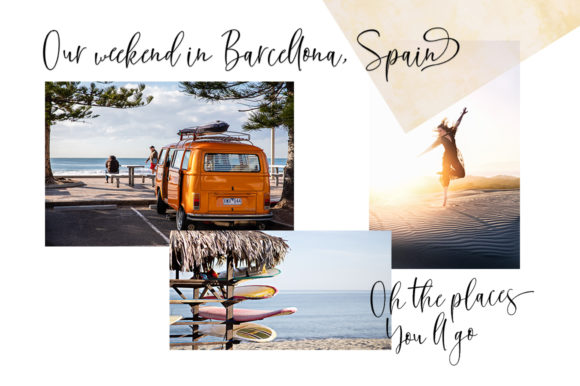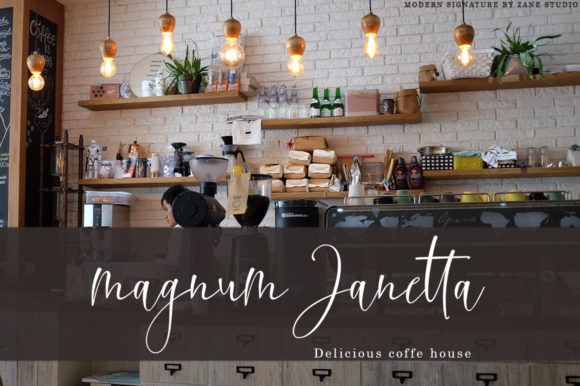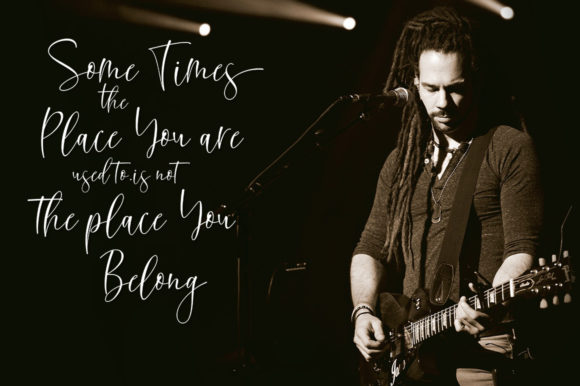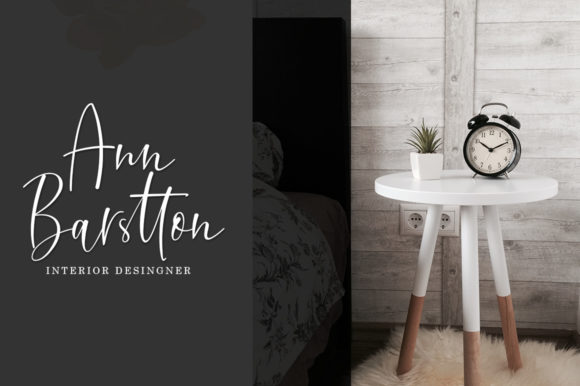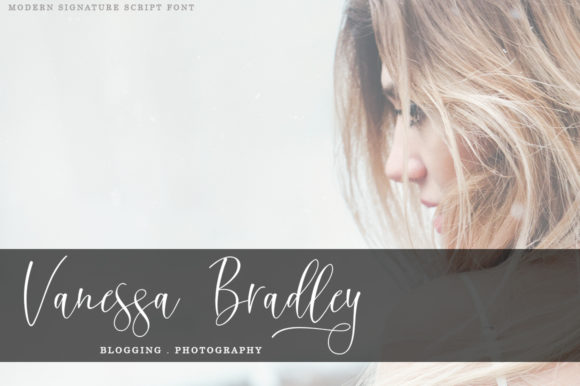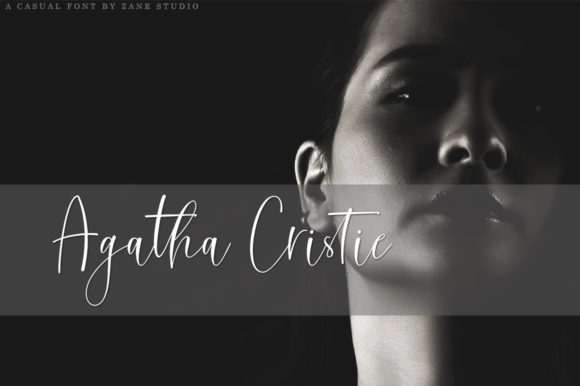
The Perfect Script for Your Next Design Project
Have you ever stared at a blank canvas, struggling to find the perfect font to bring your design to life? We’ve all been there. But what if I told you that there’s a font that can elevate your designs and make them truly stand out? Enter the Distoria Script Font, a classic signature script with an italic style that adds an upscale and chic look to any project.
This versatile font is perfect for a wide range of designs, from logos and branding projects to household items and product packaging. Its elegant and sophisticated feel makes it a valuable addition to any designer’s toolkit. Whether you’re a seasoned pro or just starting out, the Distoria Script Font is a must-have for anyone looking to add a touch of class to their designs.
Distoria Script Font Key Features
- Unique Characteristics: Distinctive, hand-drawn style with subtle irregularities, giving it a personal and human touch.
- Font Style: Script font with a mix of cursive and calligraphic elements, perfect for creative and expressive typography.
Distoria Script Font Review
I recently had the chance to work with the Distoria Script Font, and I must say it’s a beautiful, elegant script font. ✨ The flowing connections between letters and the subtle flair at the ends of strokes create a sense of fluidity and sophistication. The font is well-suited for use in branding, marketing materials, and even book design.
The font is available in a range of weights, from light to bold, which gives designers flexibility in terms of styling their text. ✨ The font also includes a wide range of language support, making it a good choice for designers working on international projects.
One limitation of the Distoria Script Font is that it may be too ornate for some designs. ✨ The intricate details and flourishes can make it difficult to read in small sizes or at a distance. Additionally, the font may not be suitable for use in situations where a more straightforward, sans-serif font is required.
Overall, I’m impressed with the Distoria Script Font. It’s a high-quality font that can add a touch of elegance to a wide range of designs. While it may have some limitations, I think it’s a great choice for designers looking to create sophisticated, high-end designs.
- Available in a range of weights (light, regular, bold)
- Includes a wide range of language support
- Beautiful, elegant script font
- Well-suited for use in branding, marketing materials, and book design
Distoria Script Font Practical Application Guide
Tips for Getting the Most Out of Distoria Script Font
Use Distoria Script Font for titles, headings, and other decorative text elements.
Combine Distoria Script Font with other fonts to create a unique and visually appealing design.
Distoria Script Font is ideal for:
Food and beverage branding
Wedding and event signage
Branding and marketing materials
Alternatives to Distoria Script Font
Carolyna Pro is a modern calligraphy font that features elegant and refined lines. It’s perfect for use in luxury branding, wedding invitations, and high-end marketing materials. Compared to Distoria Script Font, Carolyna Pro has a more polished and sophisticated look, making it ideal for upscale designs.
Great Vibes is a beautiful, handwritten font that features a mix of script and brushstroke elements. It’s great for use in creative projects, such as advertising, packaging, and editorial design. Compared to Distoria Script Font, Great Vibes has a more casual and relaxed feel, making it perfect for designs that require a friendly and approachable tone.
Alex Brush is a elegant and refined script font that features a mix of brush and calligraphy elements. It’s perfect for use in high-end branding, packaging, and editorial design. Compared to Distoria Script Font, Alex Brush has a more sophisticated and luxurious look, making it ideal for designs that require a touch of elegance.
Q: Is the Distoria Script Font available in different weights and styles?
Yes, the Distoria Script Font is available in a range of weights and styles, including light, regular, bold, and italic. These weights and styles can be used to create visual hierarchy and emphasis in